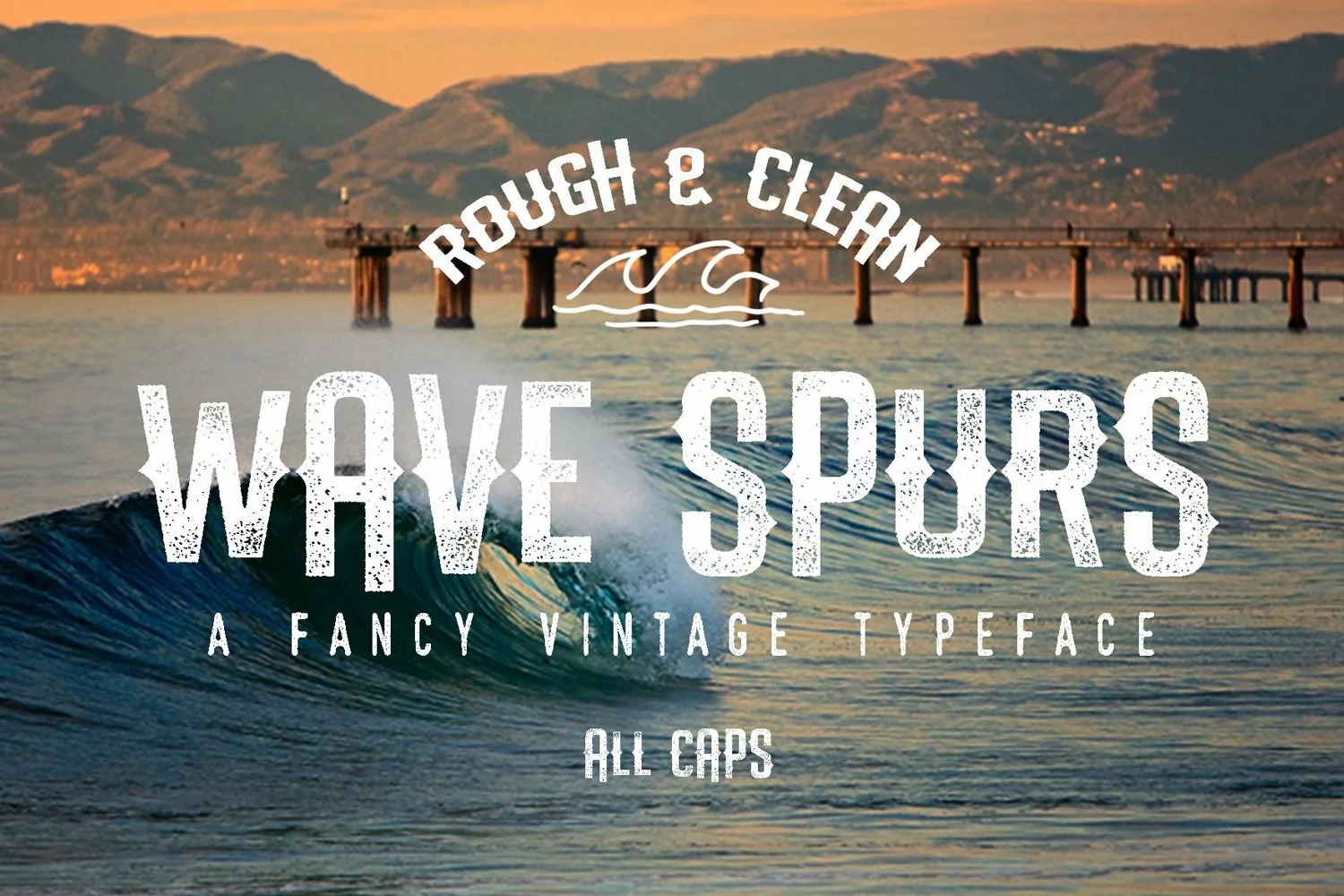
Wave Spurs is a bold typeface inspired by the waves of the ocean. This font has a unique flowing bounce that is a novel concept for a sans serif font. Waves Spurs has both rough and clean options in all caps characters. Bold and impactful Wave Spur would be fantastic for logos, headlines, branding, posters and more.